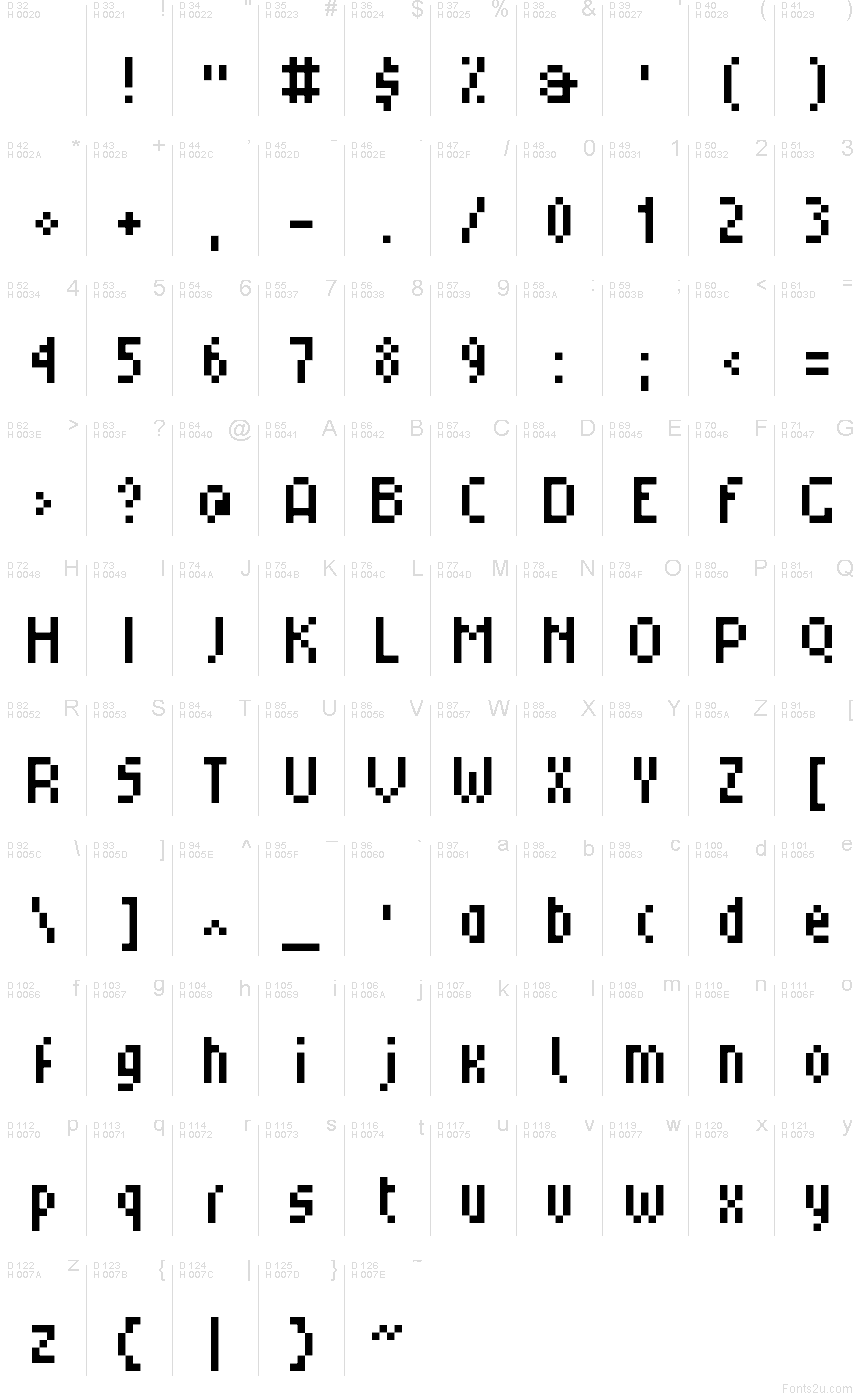
Pixuf by Erytau is a free geometric pixel font. Its squared, modular letters combine broad verticals with abrupt gaps and stepped joins, recalling the hard edges of early screen graphics without copying a familiar arcade alphabet.
Game title cards are its clearest setting because the block-built forms can echo tiled worlds, digital machinery, and retro interface panels. On music posters, album covers, and technology branding, the lettering can turn each word into a maze, circuit, or architectural grid, so it becomes a constructed graphic object within the artwork rather than neutral text.
Pixuf is a proportional font designed for sizes of 8, 16, 24, 32, and so on.
The character set includes uppercase and lowercase letters for English, Spanish, Greek, Portuguese, German, and Russian.